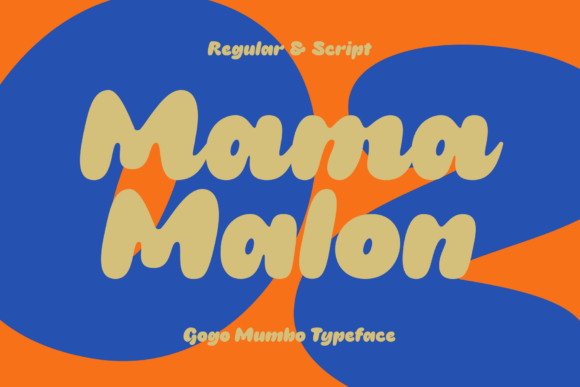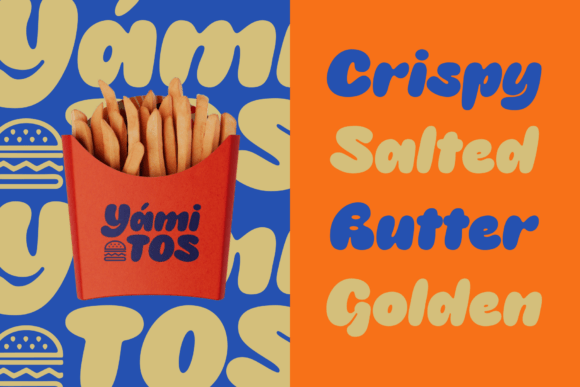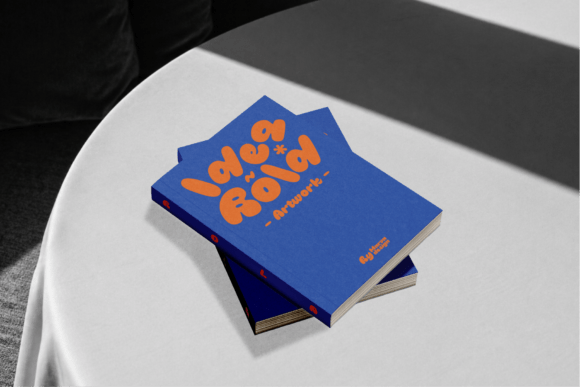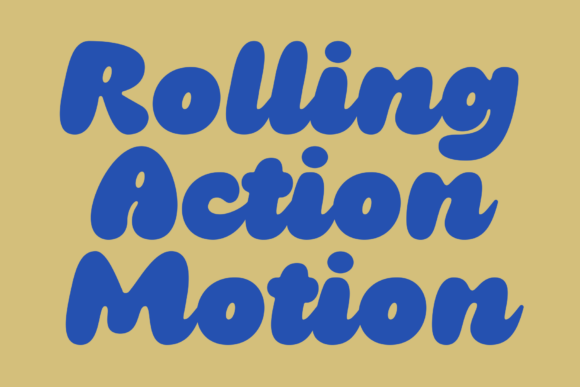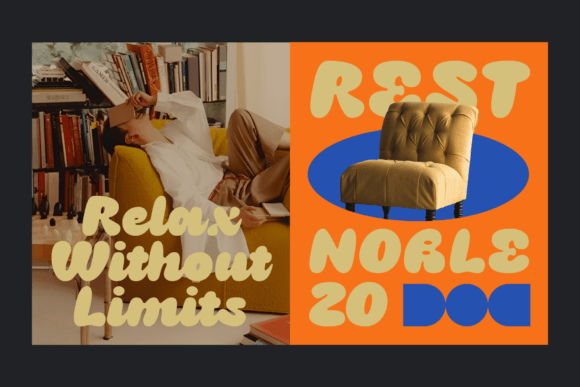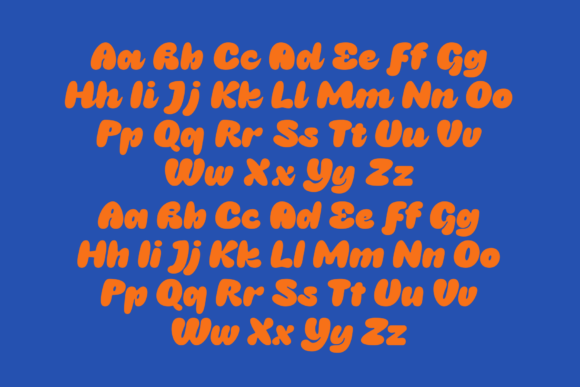
Introduction to Gogo Mumbo Font
Have you ever been stuck on a creative project, unable to find the perfect font to bring your vision to life? That’s where the Gogo Mumbo Font comes in – a game-changing design resource that will elevate your work and make it truly stand out. Whether you’re designing a poster, packaging, or branding materials, this high-quality font is sure to deliver.
With its bold, playful display style and soft, rounded forms, the Gogo Mumbo Font is the perfect choice for designers looking to add a touch of warmth and personality to their work. Its smooth curves and slightly irregular contours give it a handcrafted, organic feel that’s both visually appealing and highly readable – even at larger sizes.
Key Features of Gogo Mumbo Font
- High-quality design resource suitable for various creative projects, including logos, graphics, and digital art.
- Available in a single weight, making it easy to use in a variety of design contexts, from titles and headings to body text.
- Designed to be highly legible, even at small font sizes, making it an excellent choice for digital projects and print materials.
- Perfect for designers looking for a unique and eye-catching font to add a creative touch to their projects.
Honest Review: Gogo Mumbo Font
As a designer, I’m always on the lookout for high-quality design resources to elevate my creative projects. Recently, I stumbled upon the Gogo Mumbo Font, and I’m excited to share my thoughts on this free download.
- Unique and playful design aesthetic
- Perfect for creating eye-catching headlines and titles
- Includes a transparent background option for easy customization
One of the standout features of the Gogo Mumbo Font is its versatility. It can be used in a variety of design projects, from digital marketing materials to print publications. The font’s playful and whimsical design makes it perfect for creating a fun and engaging atmosphere in your design work.
- May not be suitable for formal or professional designs
- Limited character set, which may not be ideal for extensive text-based projects
Overall, I’m impressed with the Gogo Mumbo Font. While it may have some limitations, its unique design and high-quality aesthetic make it a valuable addition to any designer’s toolkit. If you’re looking for a fun and creative font to add some personality to your design projects, the Gogo Mumbo Font is definitely worth checking out.
Common Use Cases for Gogo Mumbo Font
The Gogo Mumbo Font is perfect for a variety of design projects, including:
- Blog posts and articles